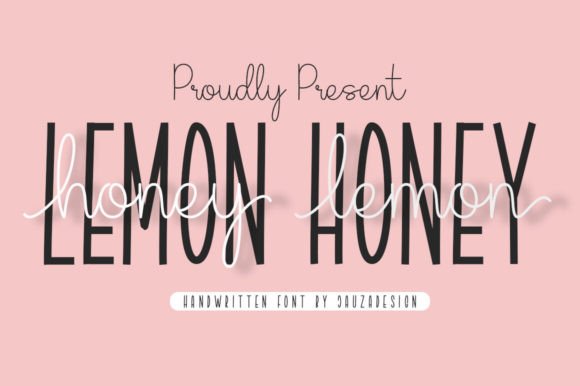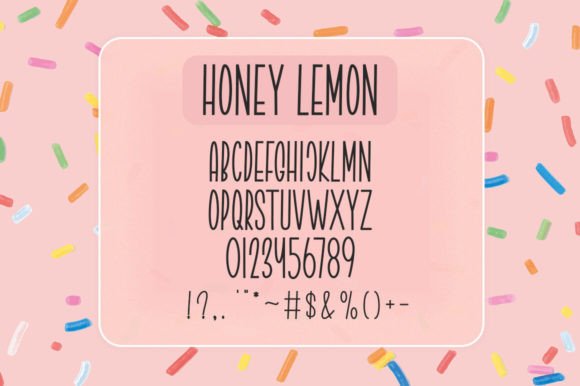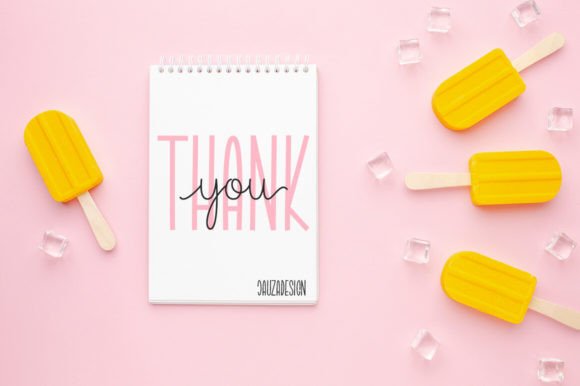
Lemon Honey is a sweet and friendly handwritten font. Its natural and unique style makes it incredibly fitting to a large pool of designs. You can successfully use it for style quotes, wedding cards, magazines, fashion, creative branding, album covers, book covers, movie titles, and so many more. Lemon Honey is PUA encoded which means you can access all the glyphs and ligatures with ease!